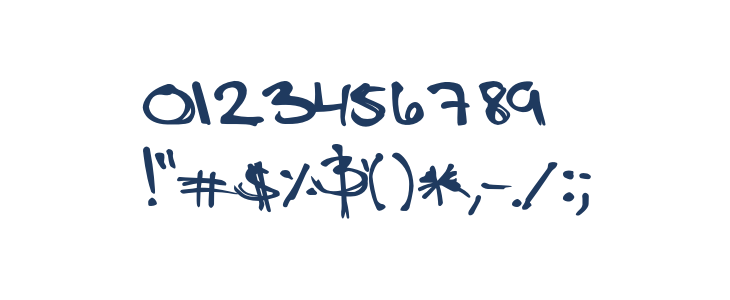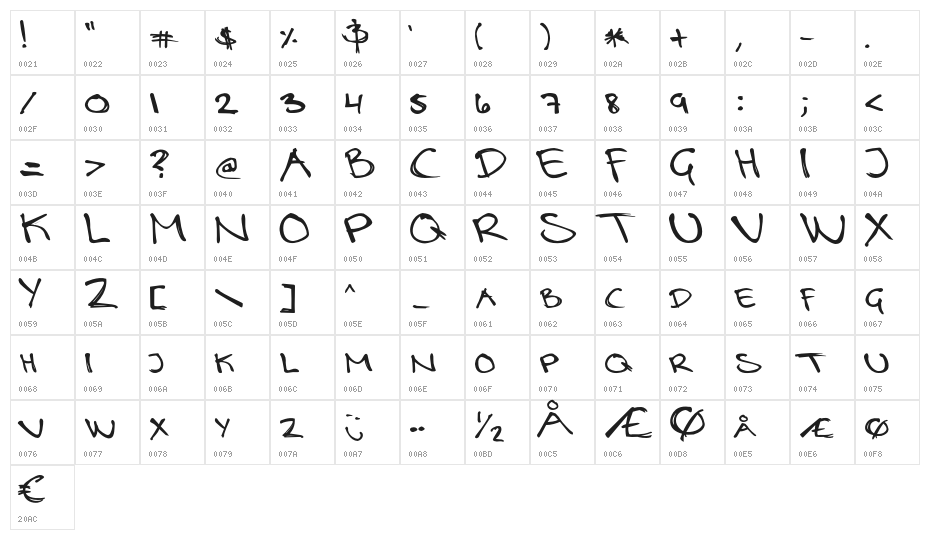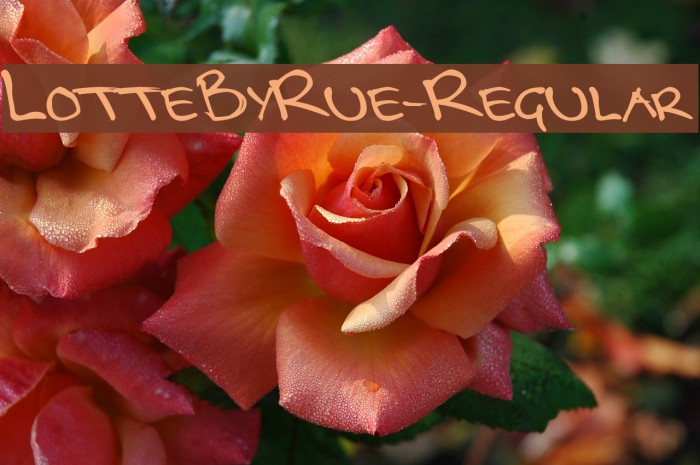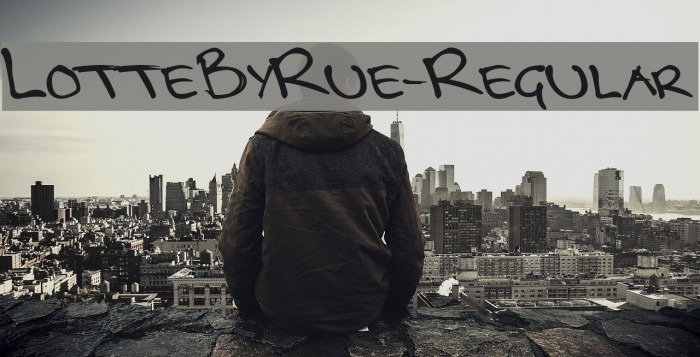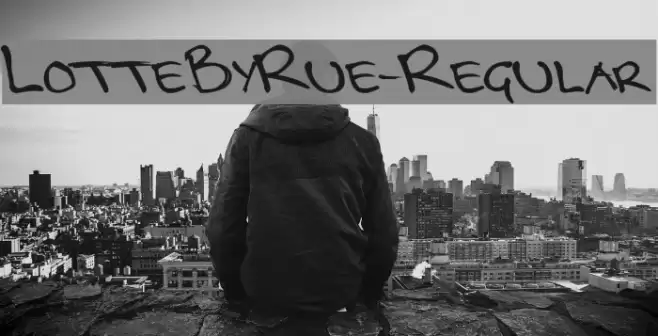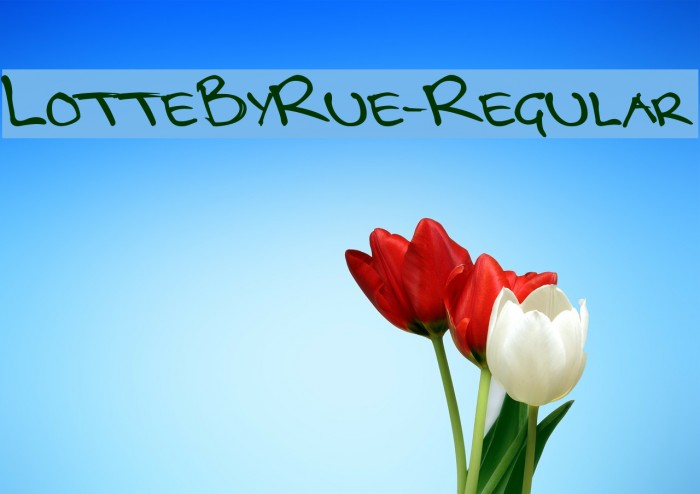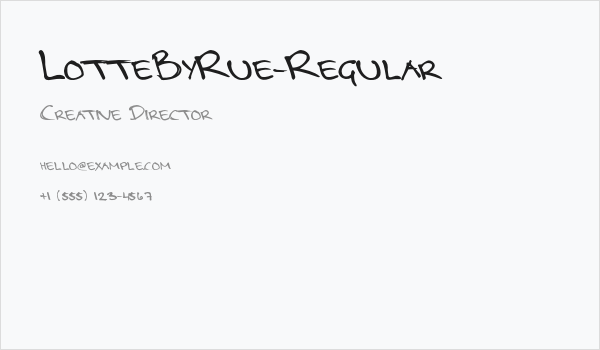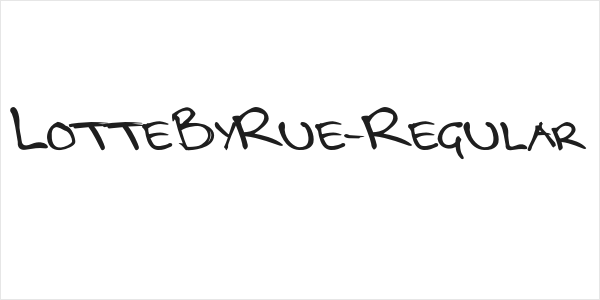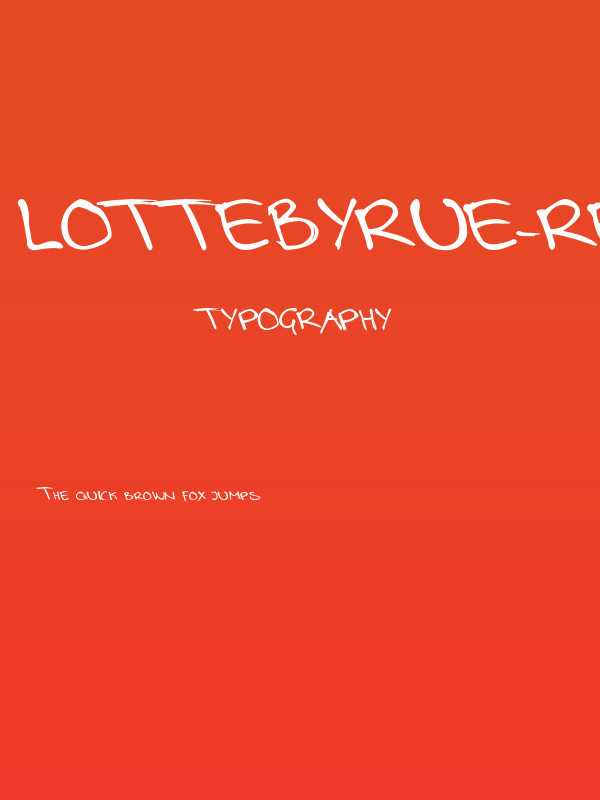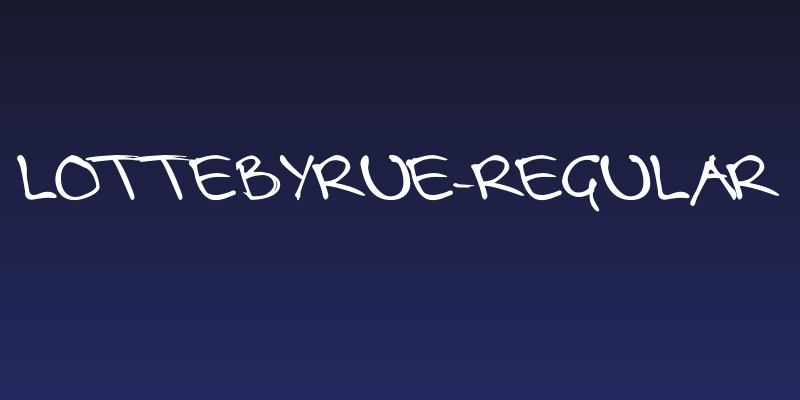
LotteByRue-Regular Font
LotteByRue-Regular Description
This font exhibits a dynamic and energetic style, characterized by its brush-like strokes and informal appearance. The letters have a hand-drawn quality, with varying thicknesses that add a sense of movement and spontaneity. The uppercase and lowercase letters maintain a consistent flow, while the numbers and special characters integrate seamlessly with the overall design. The font's playful and artistic nature makes it suitable for creative projects that require a personal touch.
| Use Case | Logos, Posters, Invitations |
| Proposed Projects | Ideal for artistic projects, branding, posters, and invitations that require a personal and creative touch. |